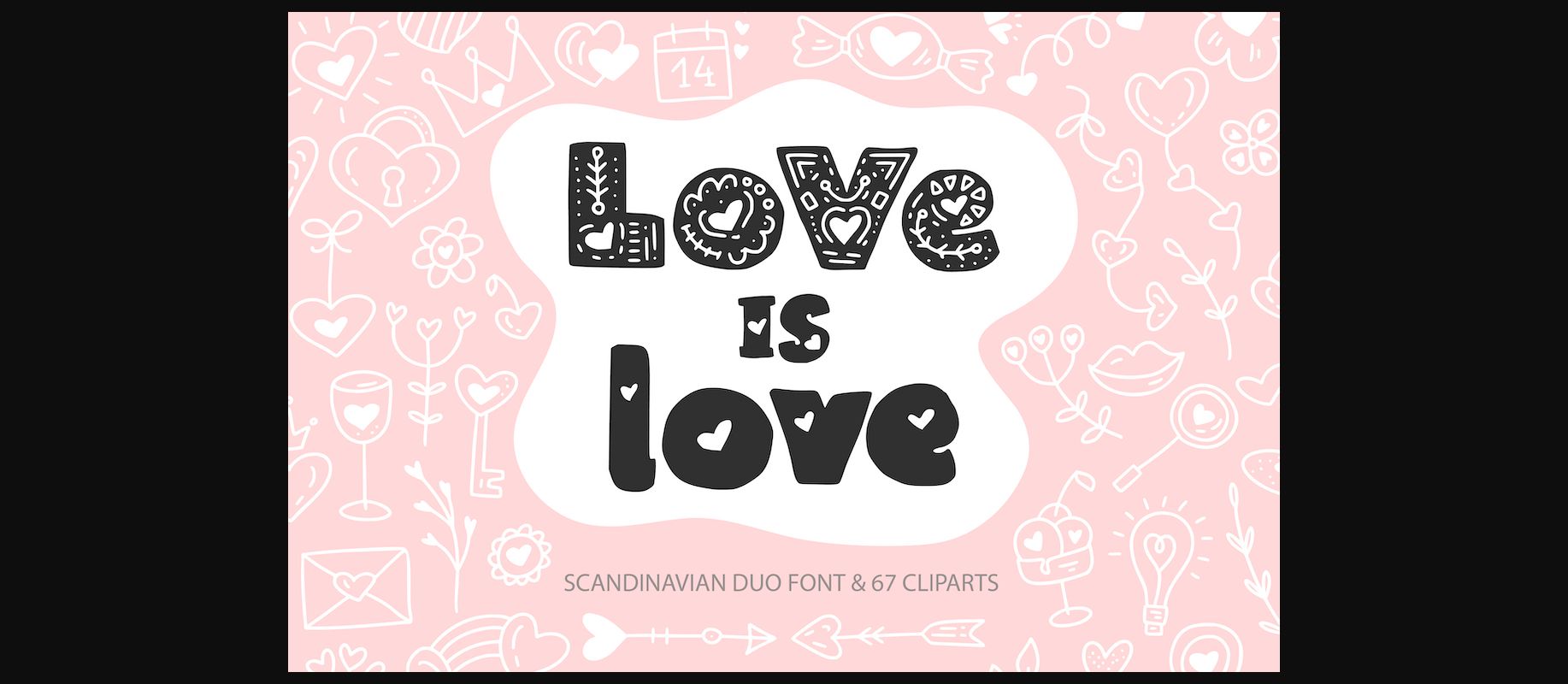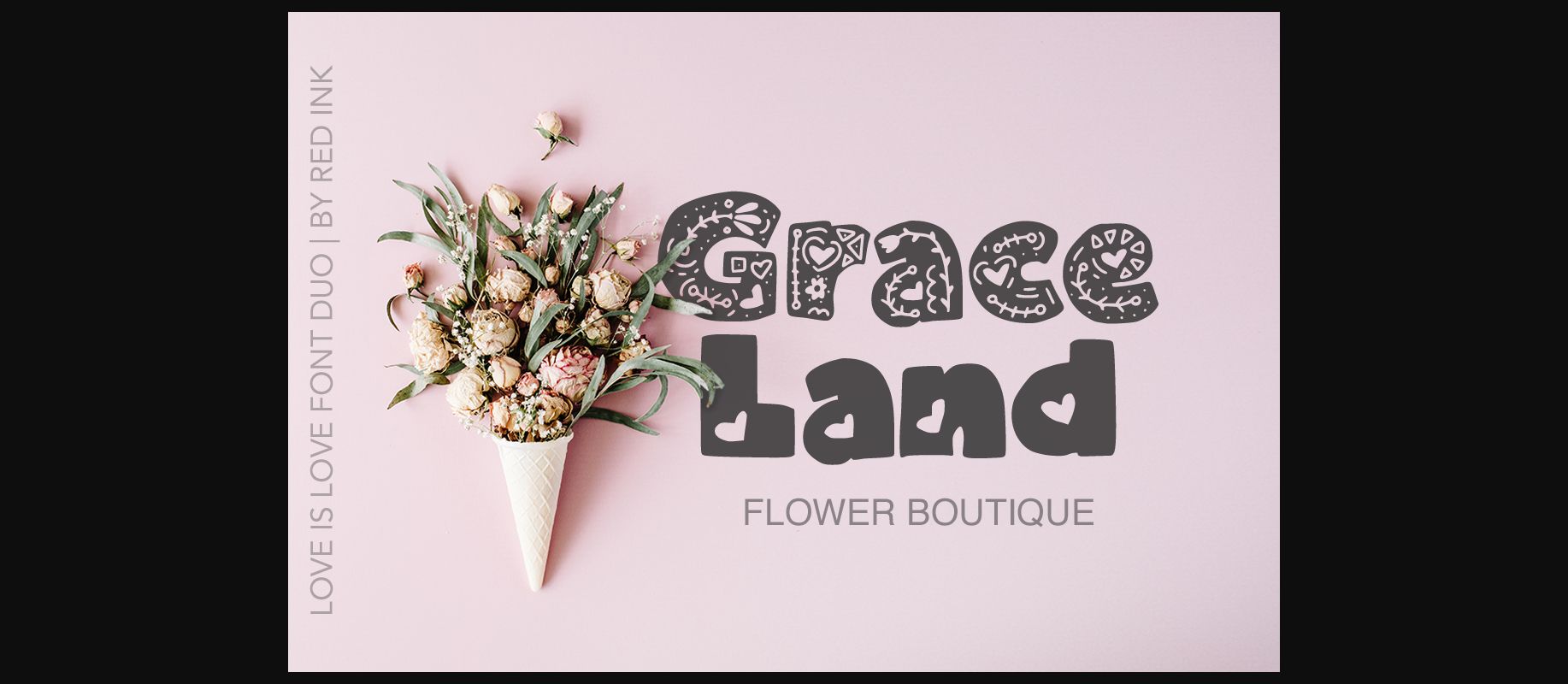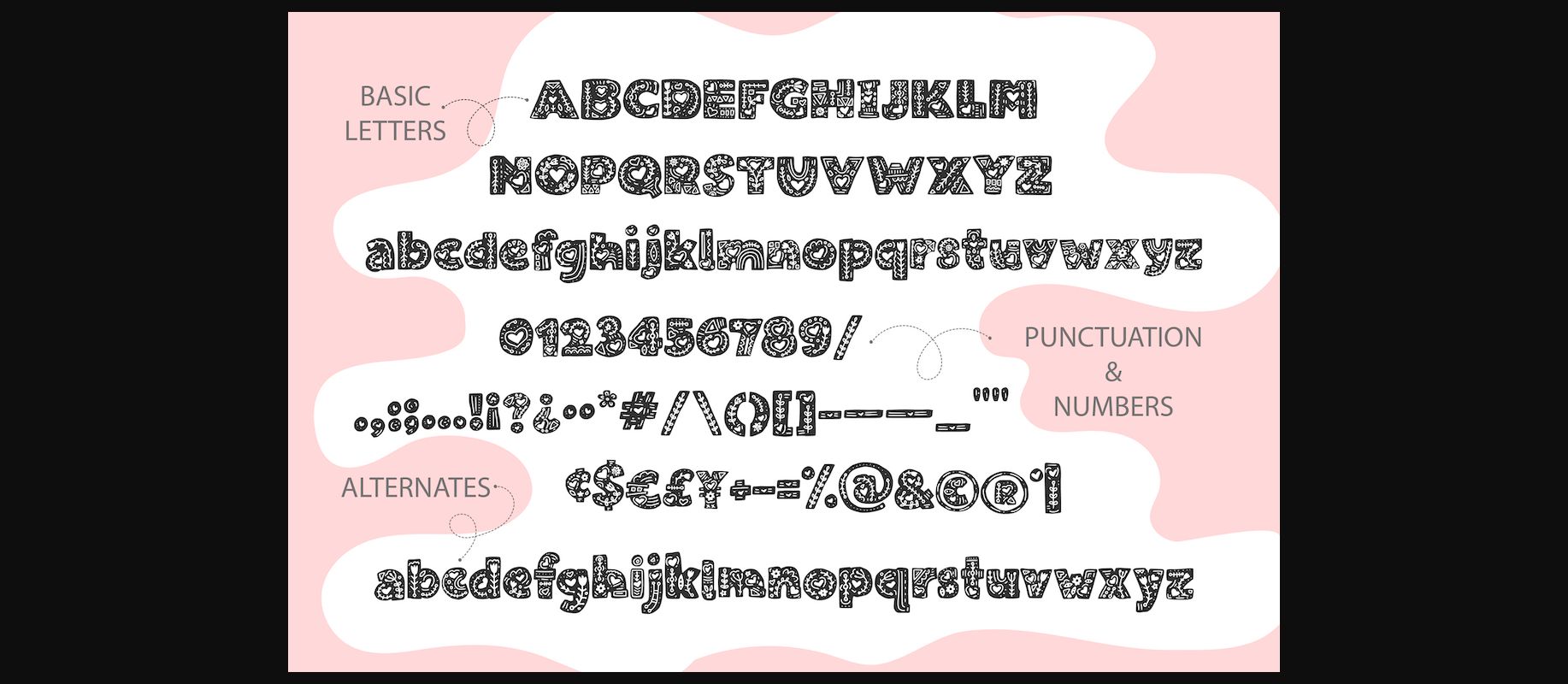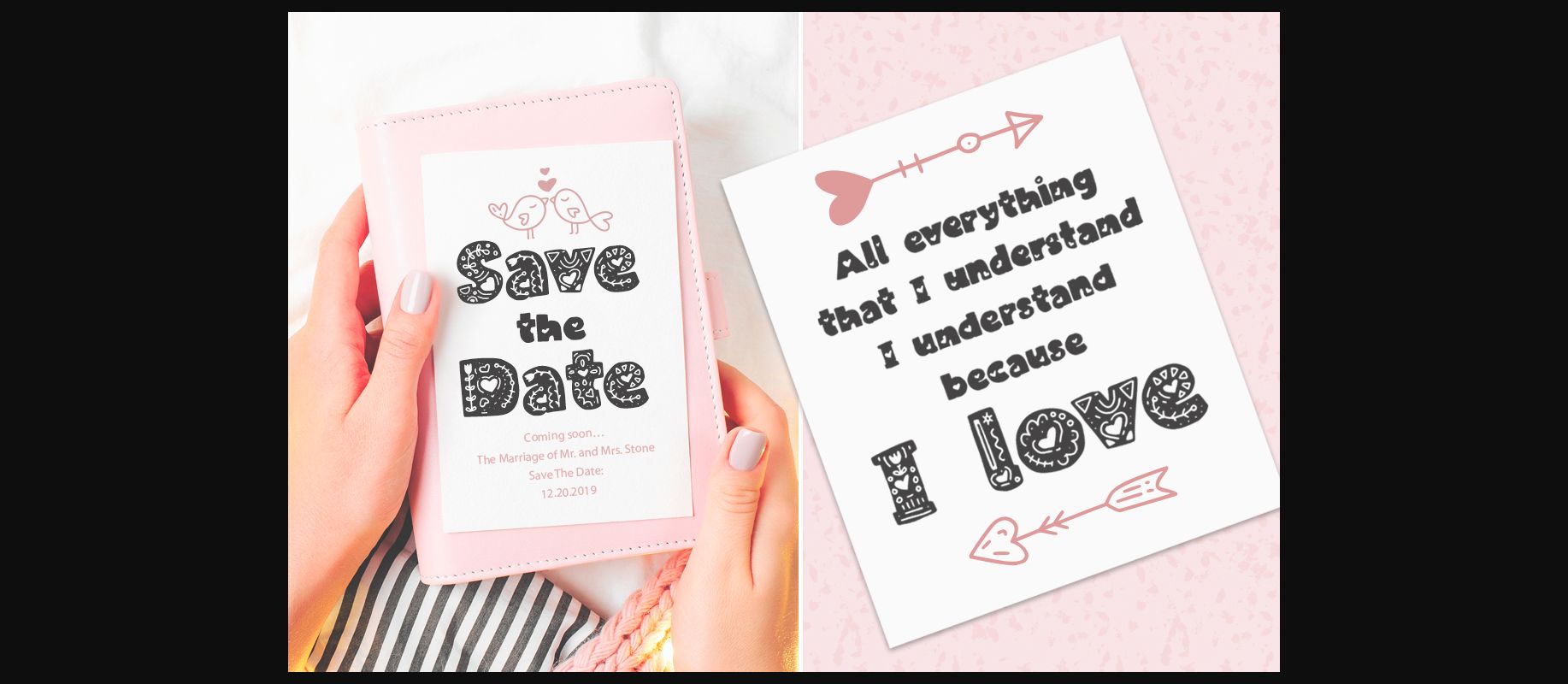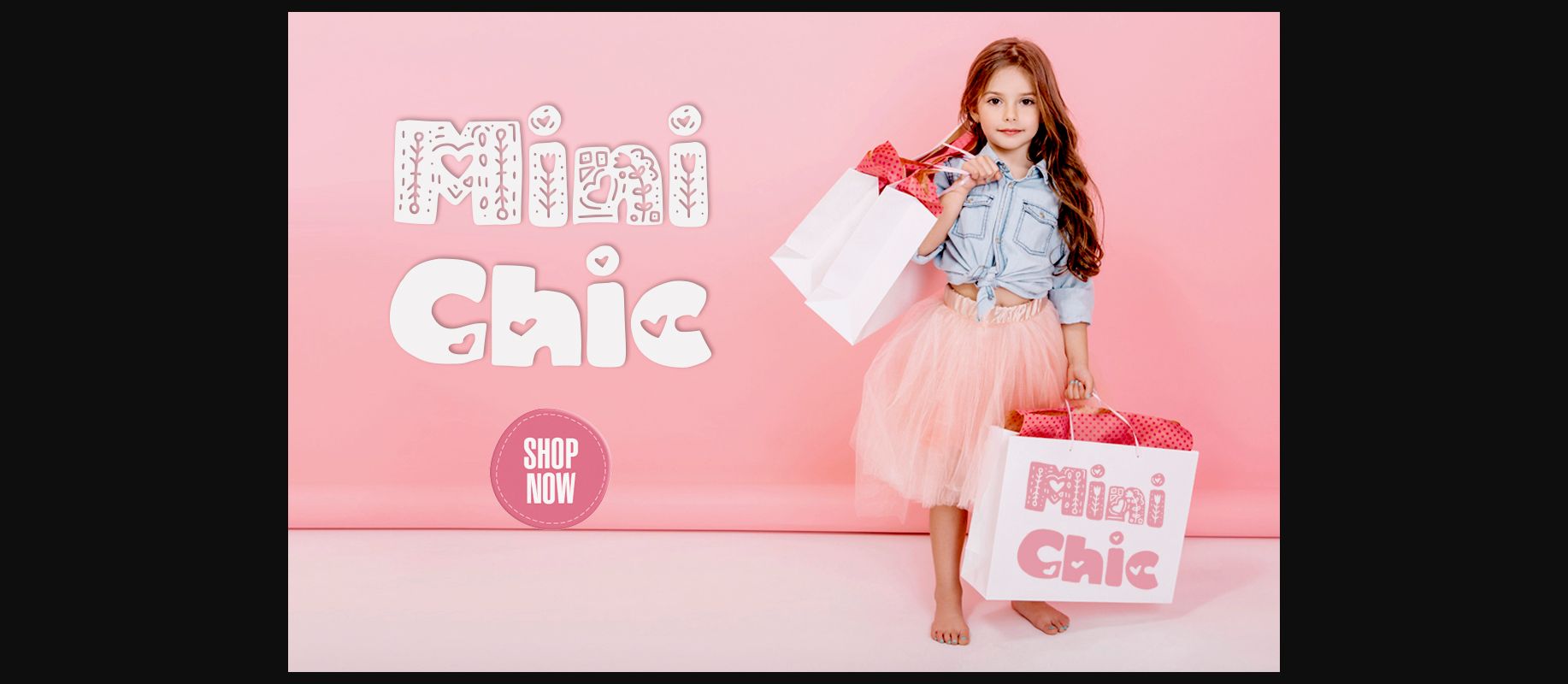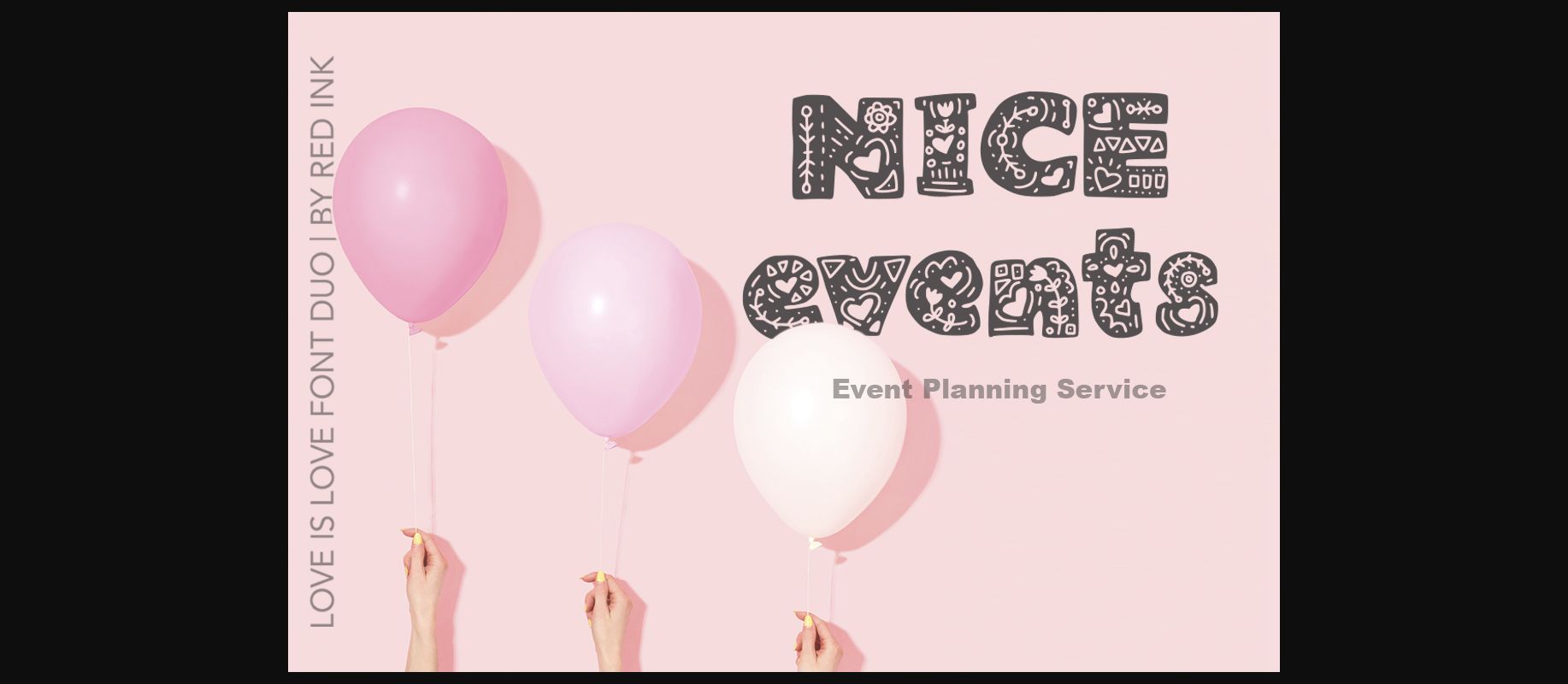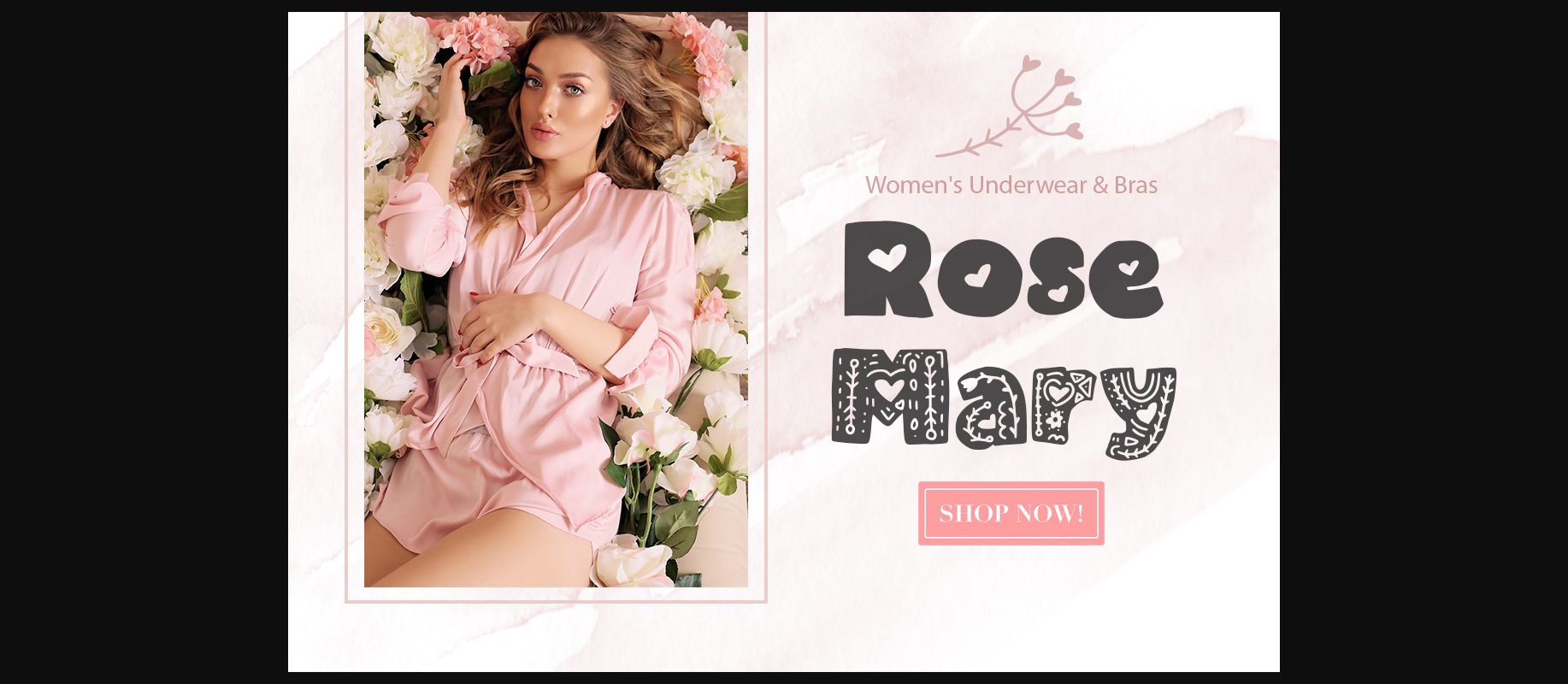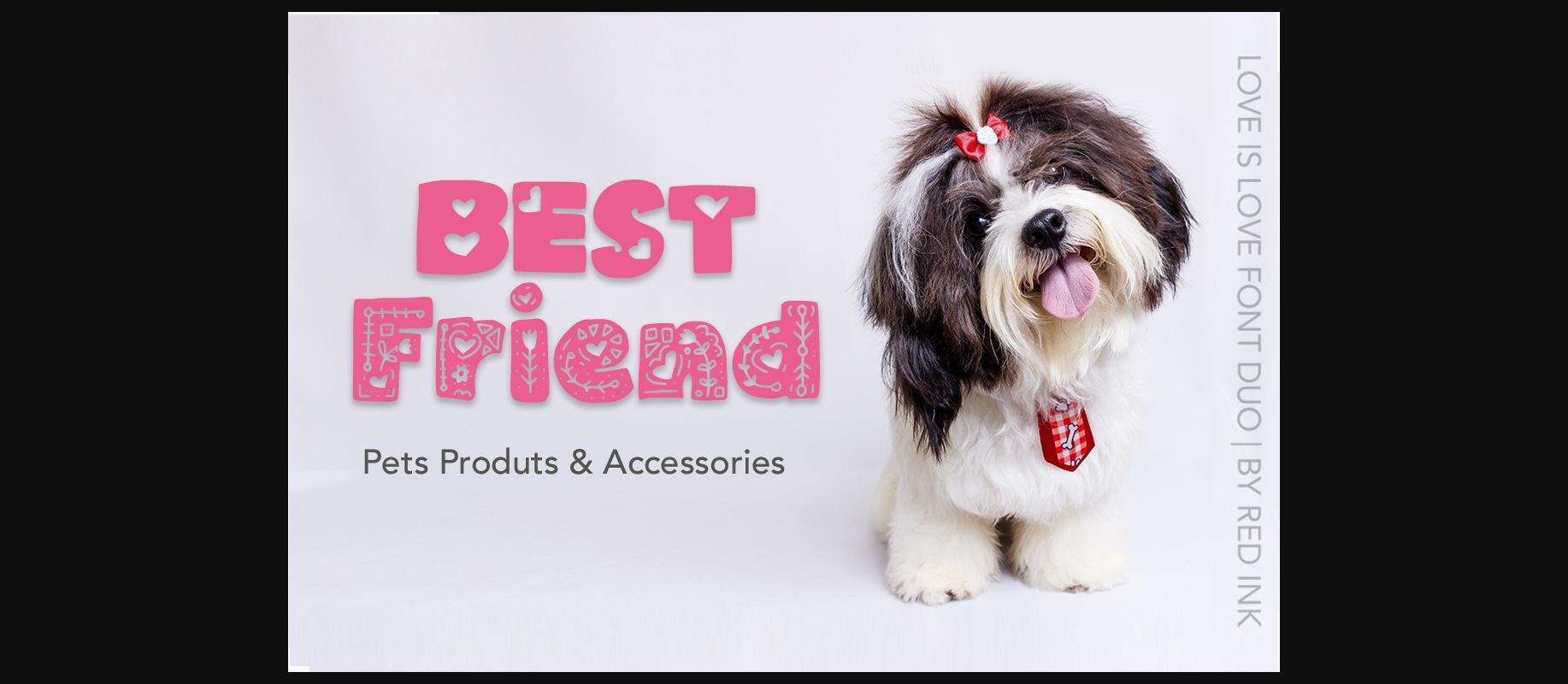
Love is Love Font
About Love is Love Font
The Love is an amazing decorative typeface which comes in two styles. It’s the perfect font to create a love message, postcard, valentines gifts, and much more!
Included as a bonus are 67 doodle art pieces to spice up your designs.